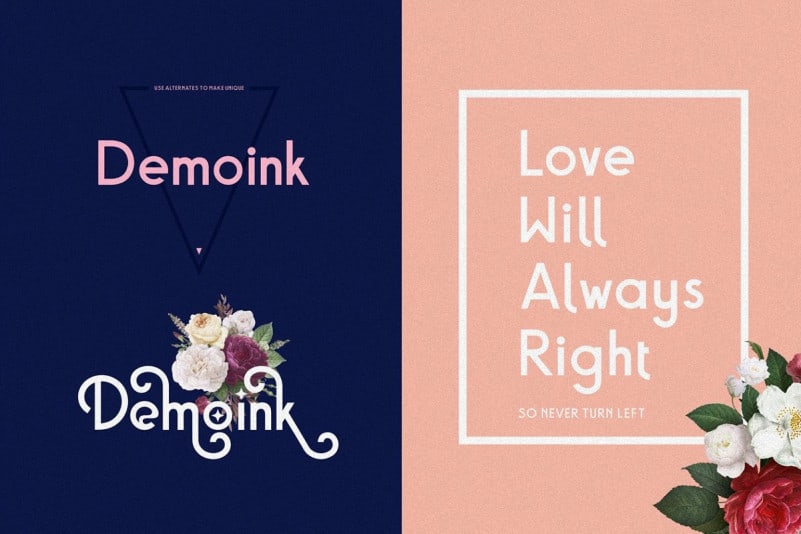
Baxoe Sans Serif Font is a playful elegant modern vintage font with beautiful ligatures, tons of special alternative glyphs, ornament and multilingual support.
This font is suitable for use in many design forms, for example magazines, postcards, logos, DIY Projects, invitation card, quotes, wedding projects and much more. We recommend using Adobe Illustrator or Photoshop.